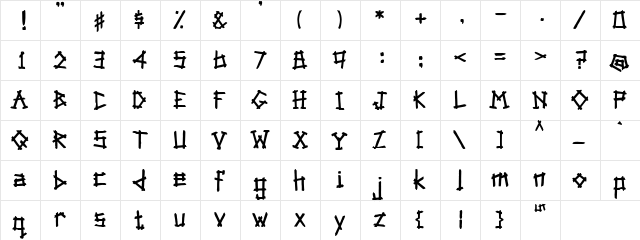
PC Clubhouse Regular
Design Context for PC Clubhouse Typeface
PC Clubhouse is a composed and adaptable typeface that performs quietly and consistently across a wide range of design contexts.